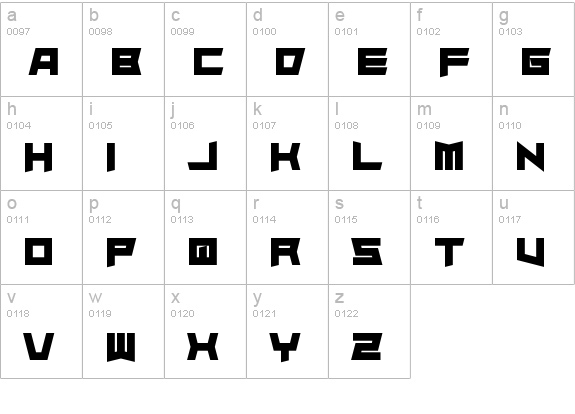
Superdie Font Details
Superdie font is a striking and modern typeface that combines sleek lines and bold strokes to create a visually appealing design. With its unique and eye-catching style, Superdie is perfect for adding a touch of sophistication to any project. This versatile font is ideal for a wide range of uses, from branding and advertising to web design and social media graphics. What's even better is that Superdie font is completely free to download at FontsMarket.com. This means you can easily add this stunning typeface to your collection without any extra cost. Don't miss out on the opportunity to enhance your designs with the stylish and contemporary Superdie font today!